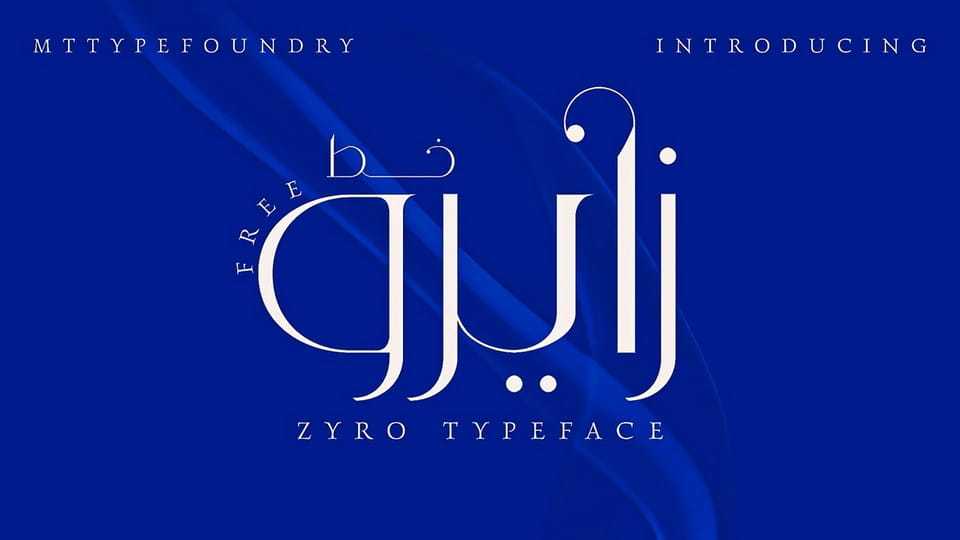
Download Zyro font, an elegant and versatile typeface designed to work naturally across Arabic, Persian, Kurdish, and Latin scripts. It brings different writing systems together in a calm and balanced way.
Designer: MTtype Foundry